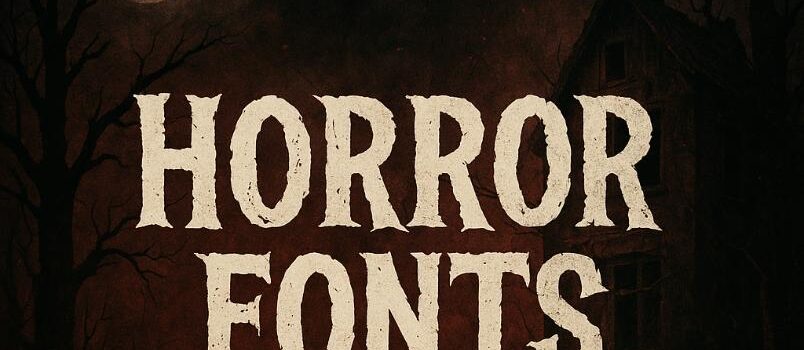
Horror fonts are powerful design elements that can instantly evoke feelings of unease, dread, and suspense. When skillfully deployed, these typefaces communicate a sense of the macabre before a single word is read. This article explores the world of horror typography—where these fonts work best, how to use them effectively, and why they continue to captivate our darkest imaginations.
The Psychology Behind Horror Typography
What makes a font “scary”? Horror typefaces typically play with our subconscious associations and primal fears. Jagged edges mimic dangerous objects, dripping letters suggest blood, and unstable letterforms create a sense of unease or madness. These visual cues tap into our instinctive response to danger and the unknown.
The most effective horror fonts don’t just look frightening—they tell a story through their very form. A hand-drawn, erratic typeface might suggest the workings of a disturbed mind, while weathered, decaying letters can evoke abandoned places and forgotten histories.
Effective Applications for Horror Fonts
Horror typography shines in various contexts when used thoughtfully:
Entertainment Industry: The most obvious application is in horror movie posters, book covers, and promotional materials. The right font can establish tone instantly before any imagery is processed.
Seasonal Marketing: Businesses of all kinds incorporate horror elements during Halloween season, from restaurant menus to retail signage.
Gaming: Video games use specialized typography to establish mood and setting, with horror games particularly dependent on atmospheric type design.
Event Design: Haunted attractions, ghost tours, and themed parties rely heavily on appropriate typography to set expectations.
Editorial Design: Magazine spreads or articles covering horror topics, true crime, or dark history benefit from carefully selected horror typography as accent elements.
Dripping Marker
Barbeque Jr
Beurk
Bleed
Blood Of Dracula
Bloodsuckers
Bloody Stump
Manson Nights
No Fear
Brain Damage
Buffied
Burning Wrath
Cabeen Crappy
Caracura
Crazy Killer
Demon Night
Solstice Of Suffering
Francis
Graveyard
Haunted
Kreepshow ‘Frigid’
Liquidism
Bloody Brujah
Massacre
Monsters Attack
Conclusion
Horror typography remains fascinating because it operates at the intersection of design and emotion, creating visual experiences that trigger deep-seated responses. Whether used to market the latest frightening film or to give a haunted house flyer that perfect unsettling touch, these specialized fonts continue to evolve while drawing on our timeless fears.
When used with creativity and restraint, horror fonts do more than just communicate words—they summon atmospheres, suggest narratives, and invite viewers to step into darker worlds, if only momentarily. In an increasingly digital design landscape, these evocative typefaces remind us that letters themselves can tell stories before we’ve read a single word.